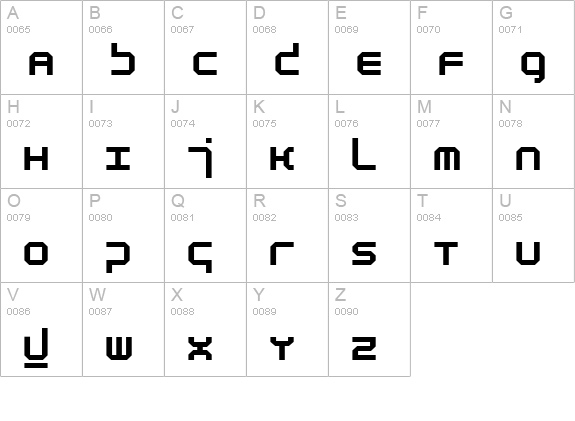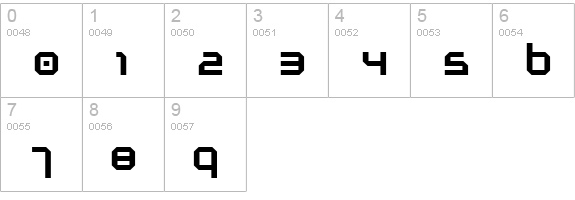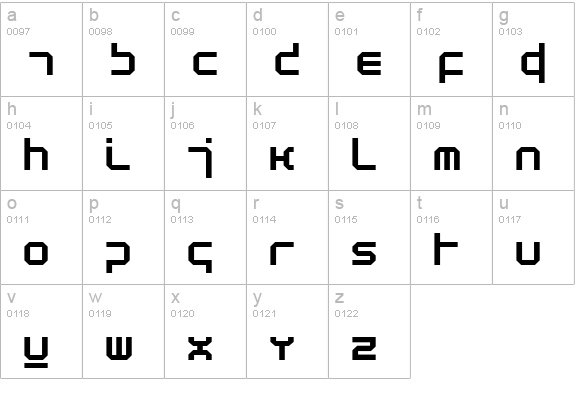
Atmosphere Bold Font Details
Atmosphere Bold is a strong, high-contrast variant in the Atmosphere typeface family \xE2\x80\x94 well suited to headlines, attention-grabbing titles, and strong calls-to-action.
Introducing Atmosphere Bold font - a striking and modern typeface that exudes confidence and sophistication. With its bold and impactful design, Atmosphere Bold is perfect for making a statement in any project. Whether you're creating a poster, logo, or branding materials, this font is sure to grab attention and leave a lasting impression. What's even better is that Atmosphere Bold is available for free download at FontsMarket.com. Yes, you heard it right - you can easily get your hands on this stunning font without spending a dime. So why wait? Elevate your designs with Atmosphere Bold today and let your creativity shine!